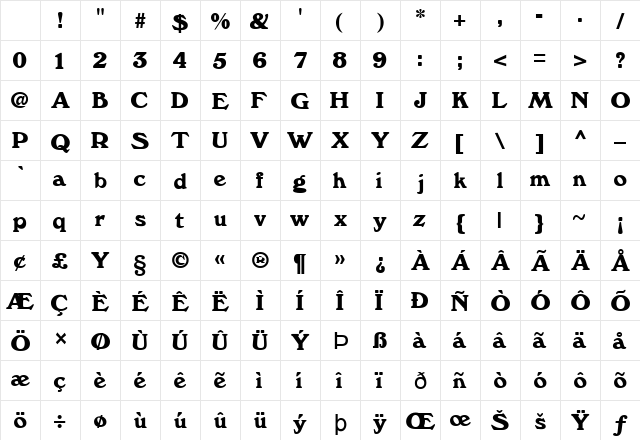
FZ ROMAN 12 Normal
Design Context for FZ ROMAN 12
FZ ROMAN 12 is a composed and adaptable typeface that performs quietly and consistently across a wide range of design contexts.
Pro Tip: Use FZ ROMAN 12 in both headline and body roles to test its range before committing to a single application.